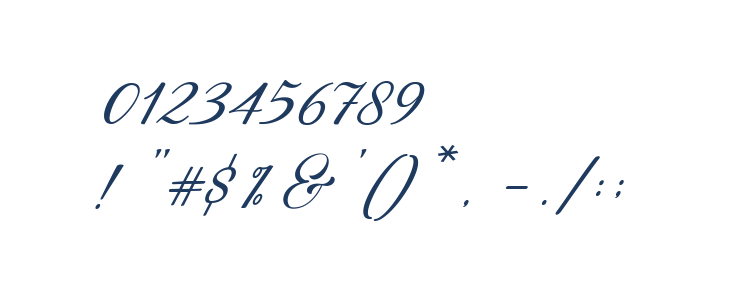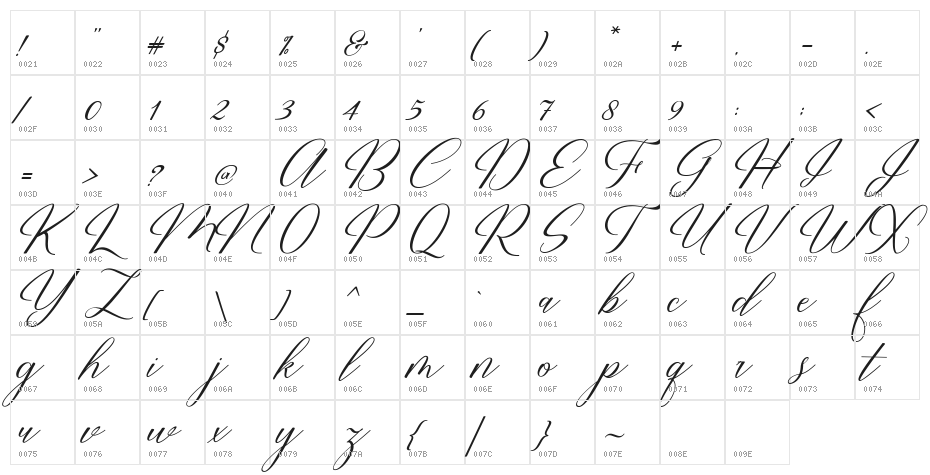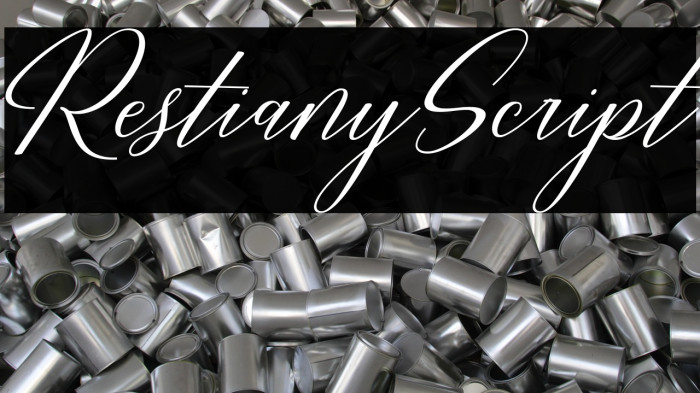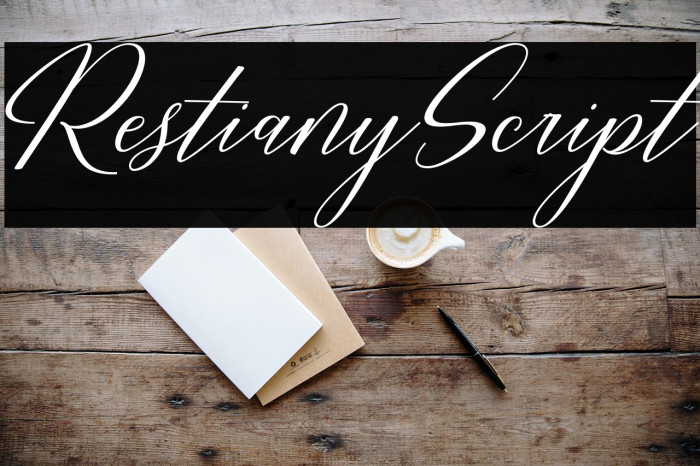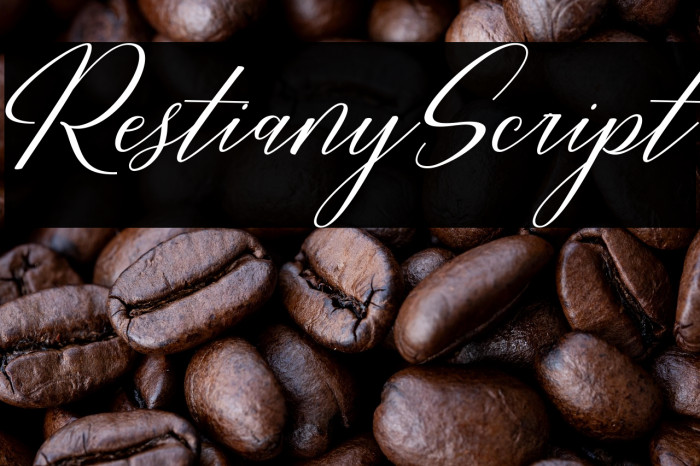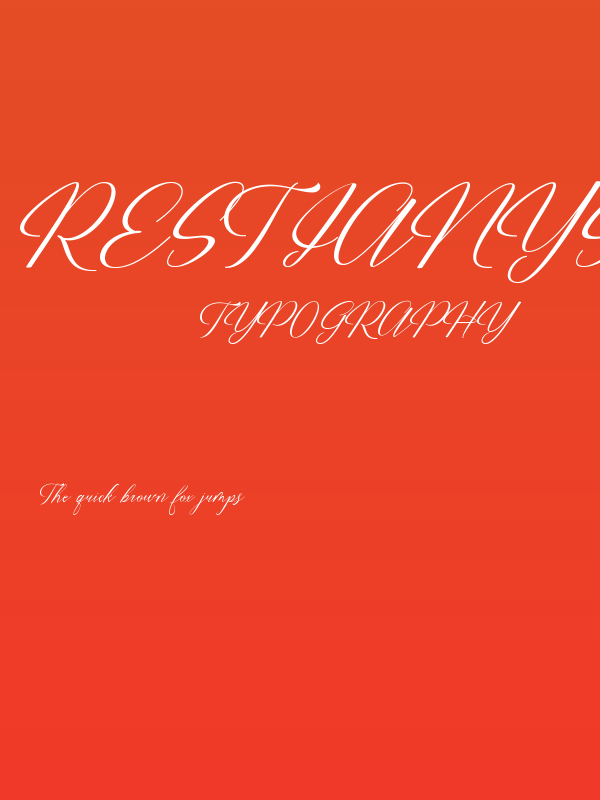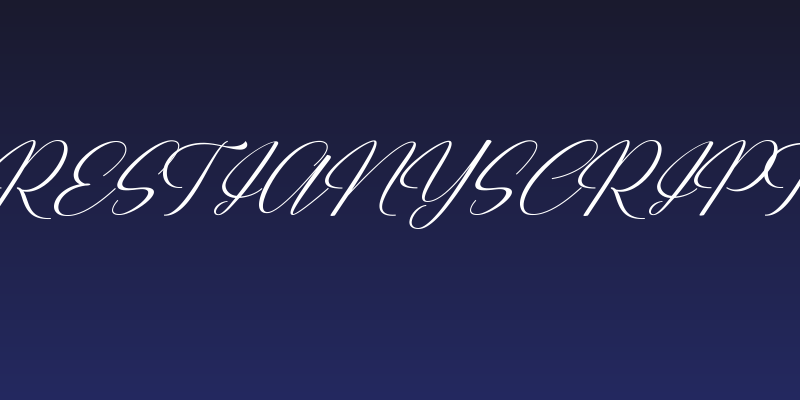
RestianyScript Font
RestianyScript Description
This elegant script font features fluid, connected strokes that mimic the natural flow of handwriting. The uppercase letters are gracefully elongated, with sweeping curves and delicate loops that convey a sense of sophistication and style. The lowercase letters maintain a consistent rhythm, with smooth transitions between each character, enhancing readability while preserving the font's artistic flair. The numerals are designed with a similar attention to detail, ensuring they blend seamlessly with the alphabetic characters. Special characters are crafted with the same elegance, making this font versatile for various design needs.
Overall StyleElegant
Use CaseHeadlines, Logos, Invitations
Proposed ProjectsIdeal for wedding invitations, elegant branding, personal signatures, and decorative headings.